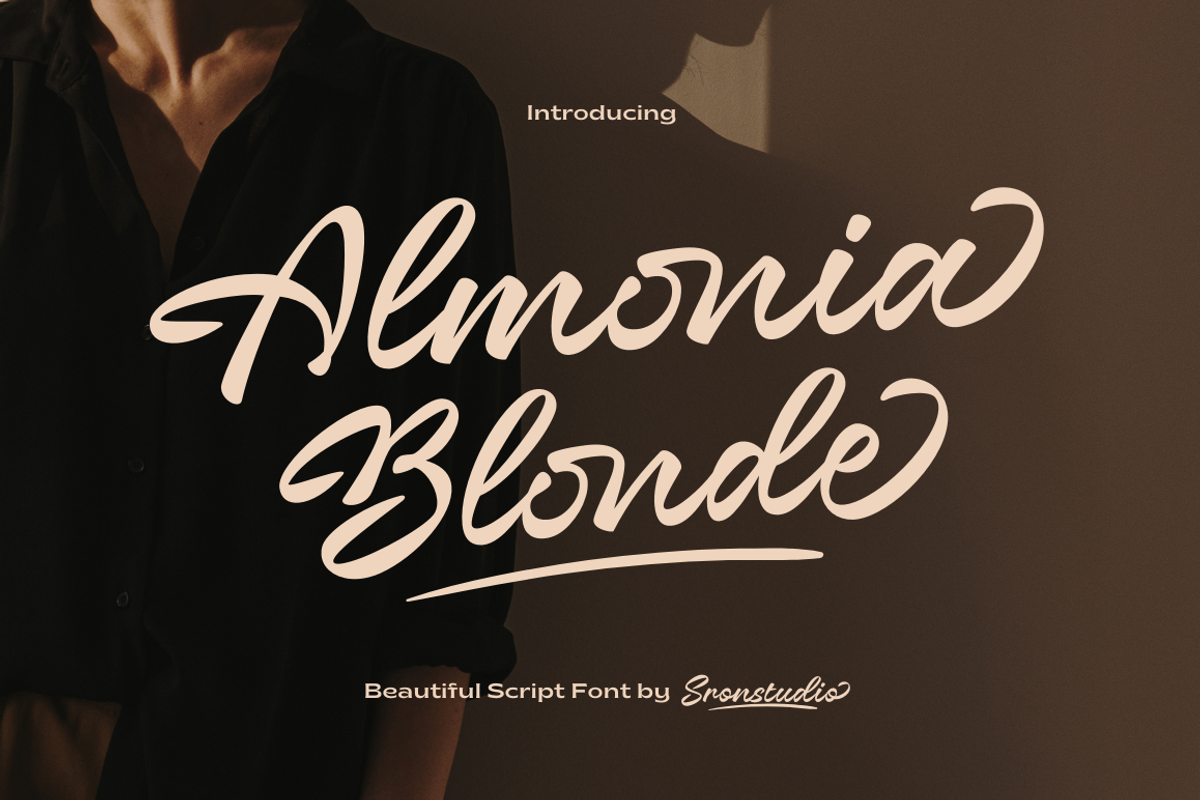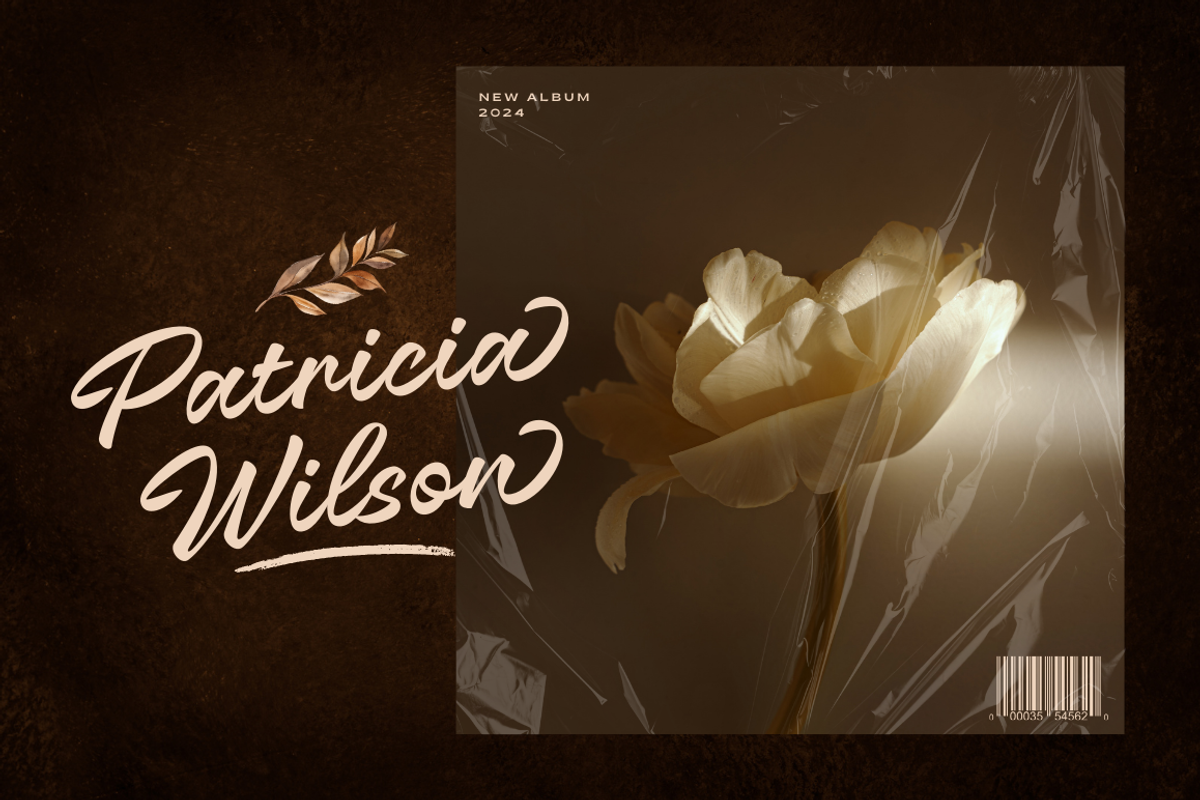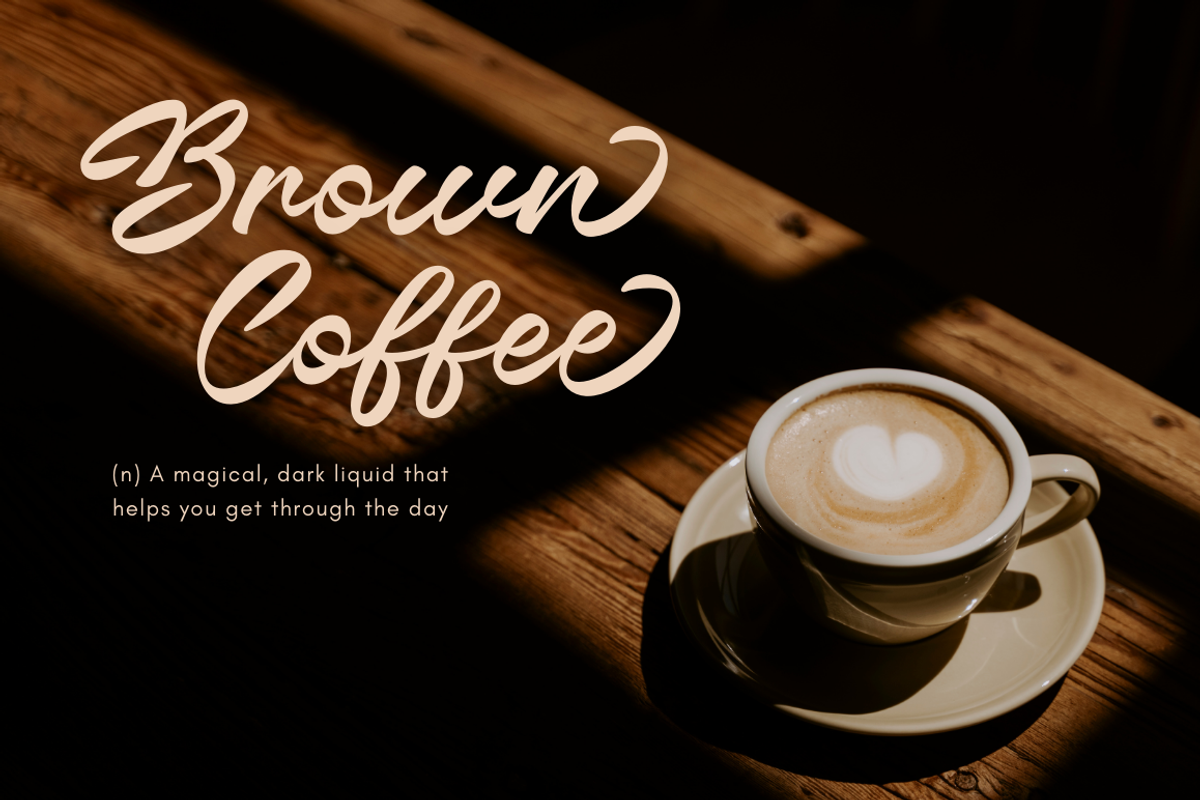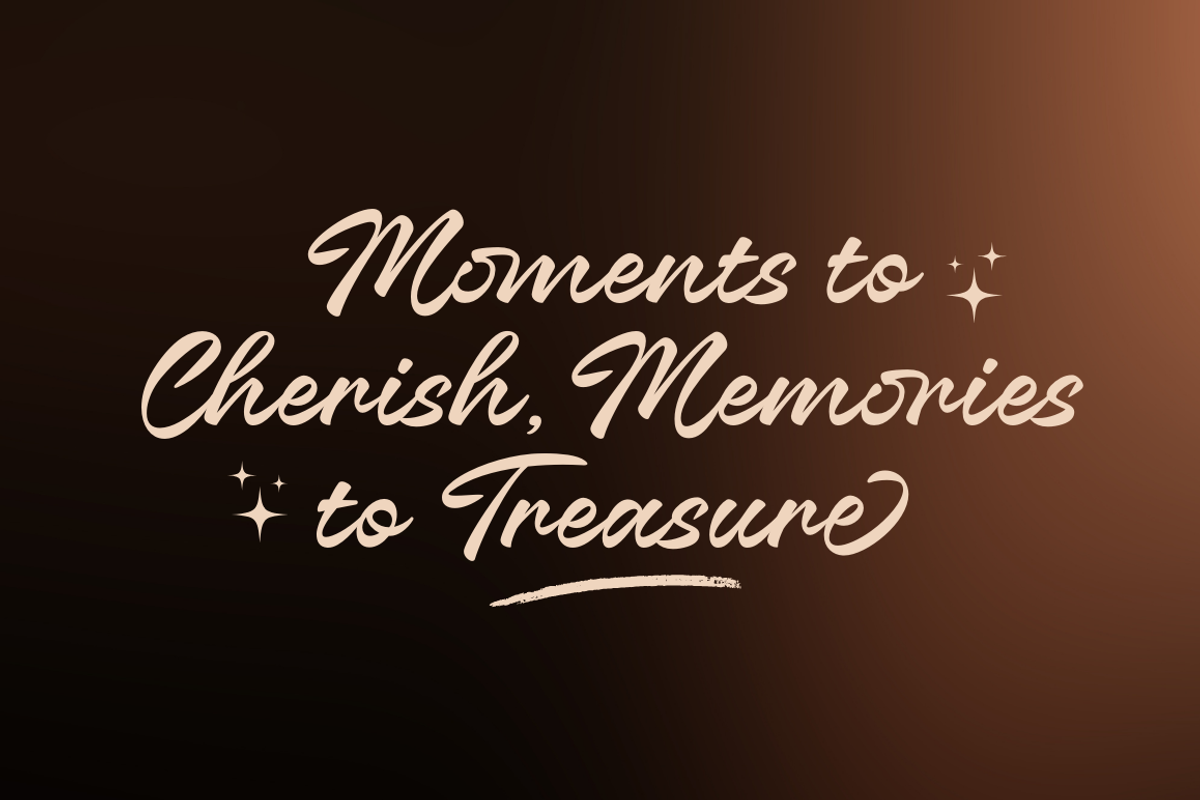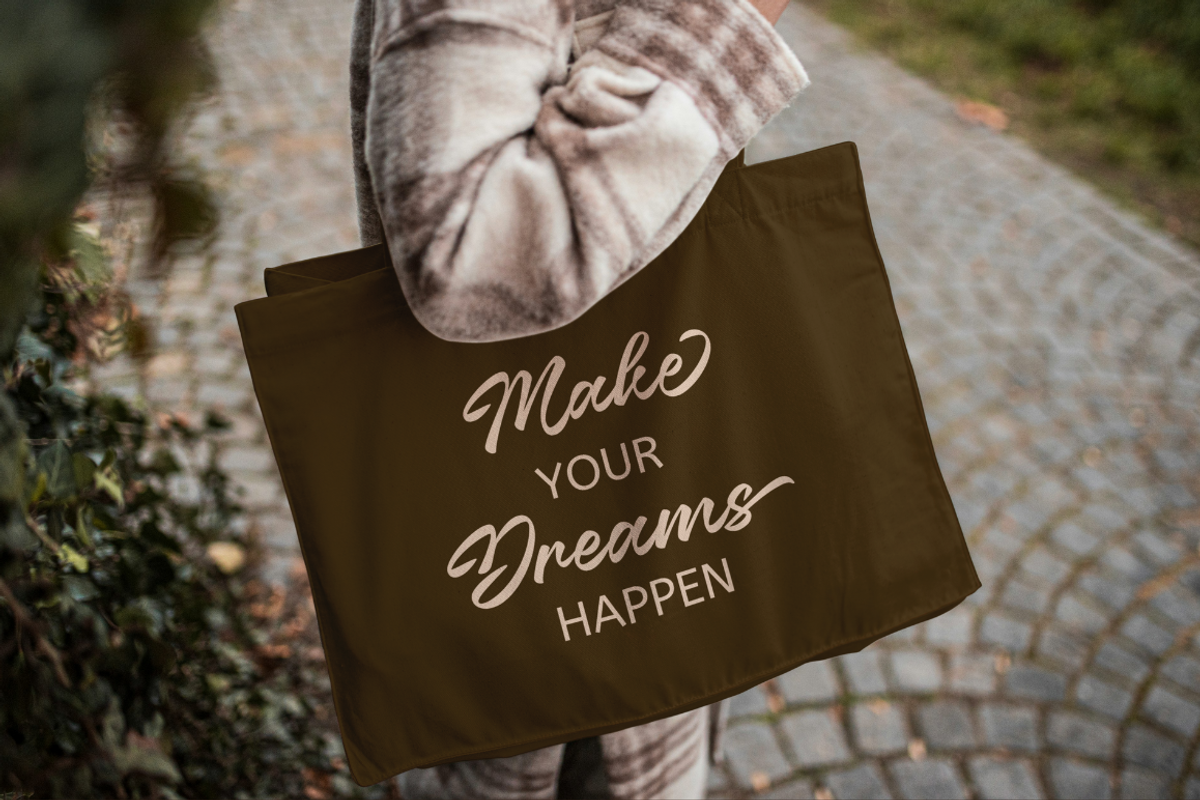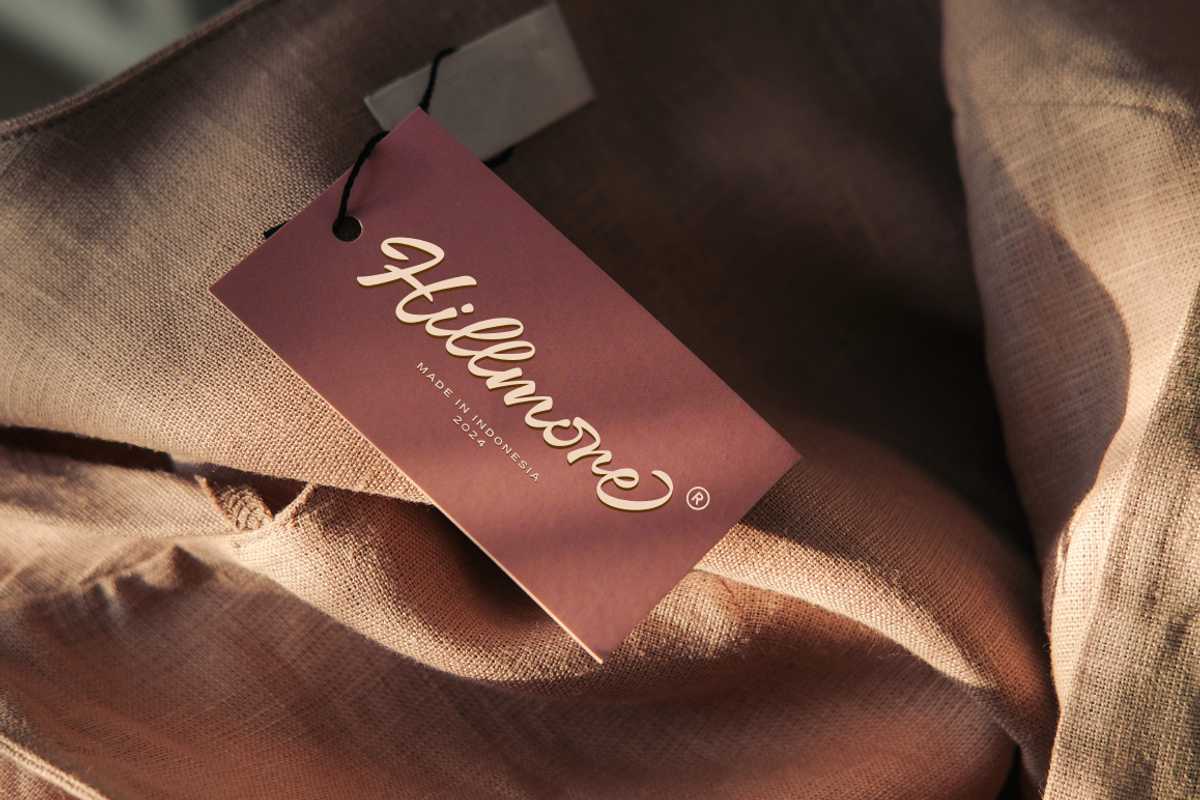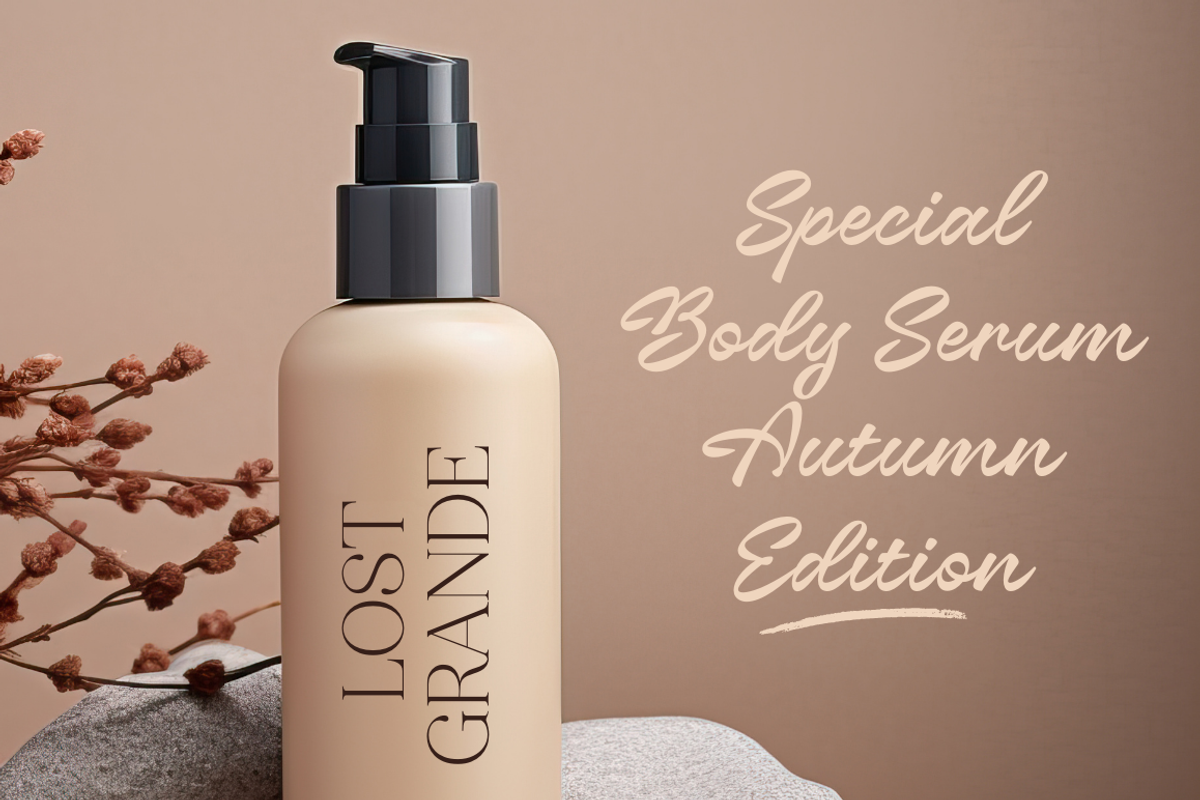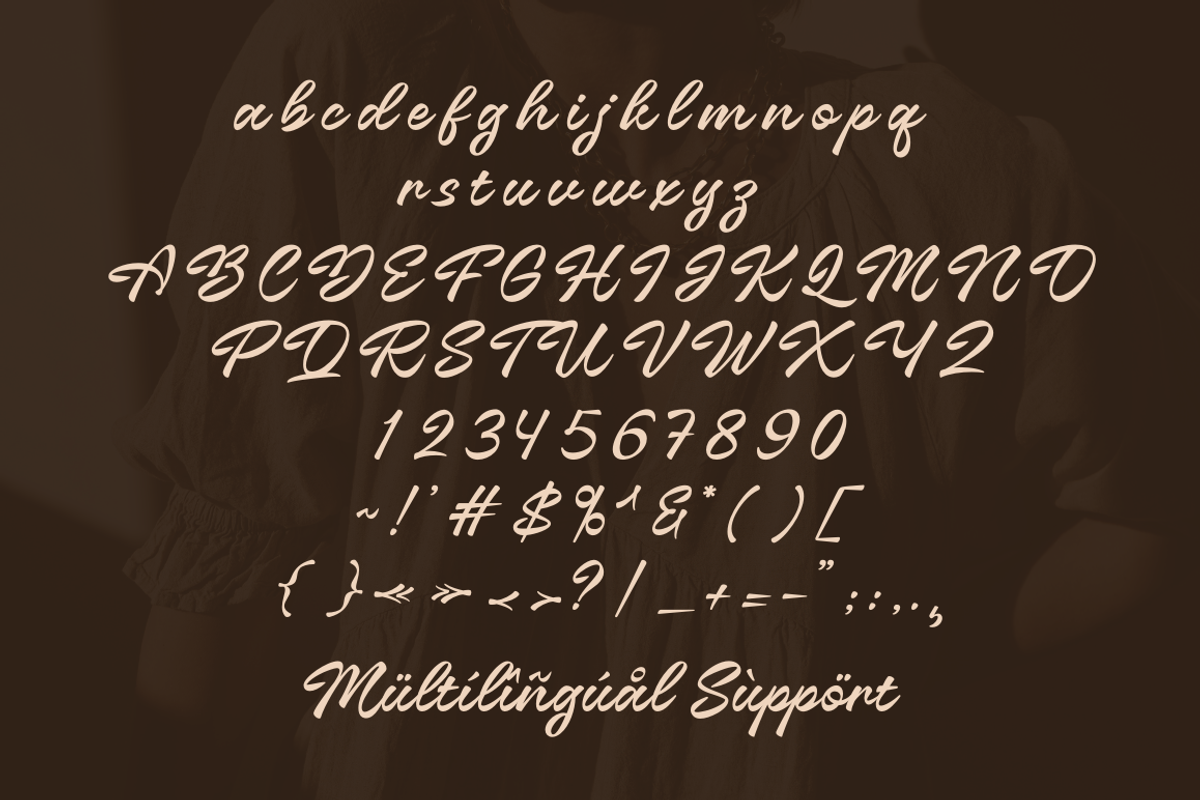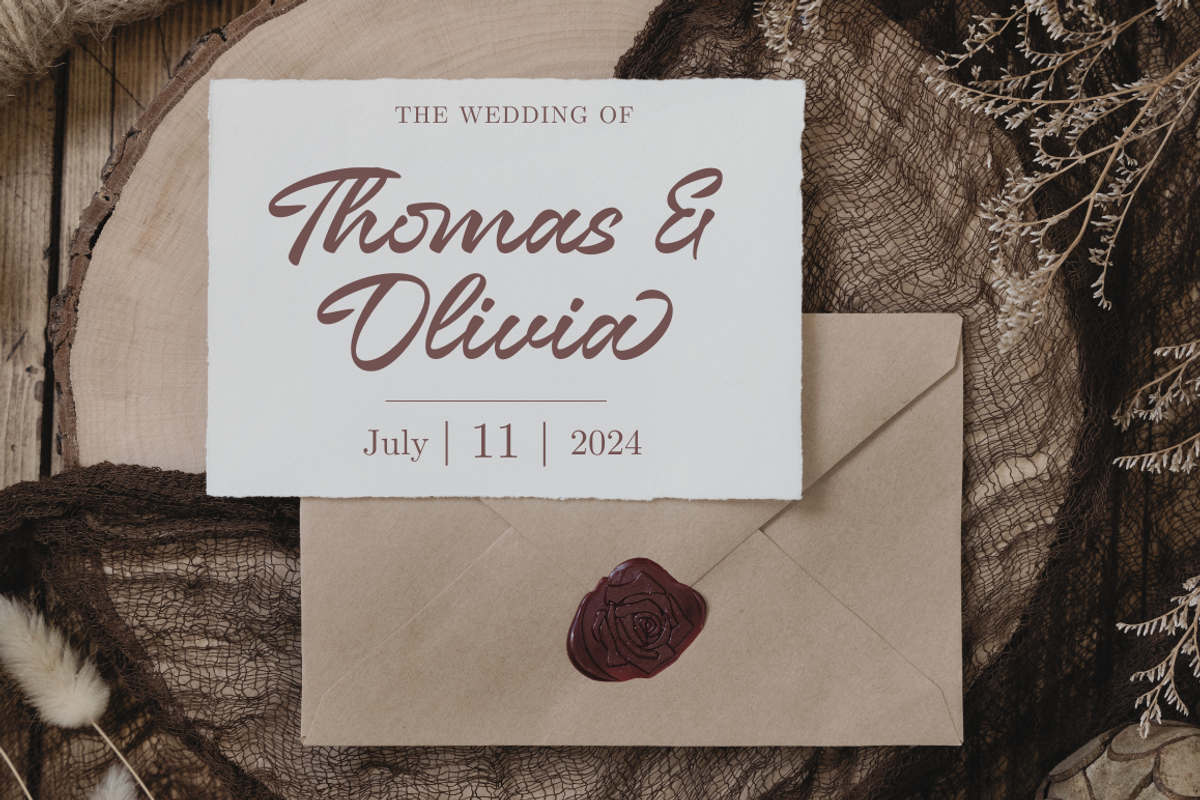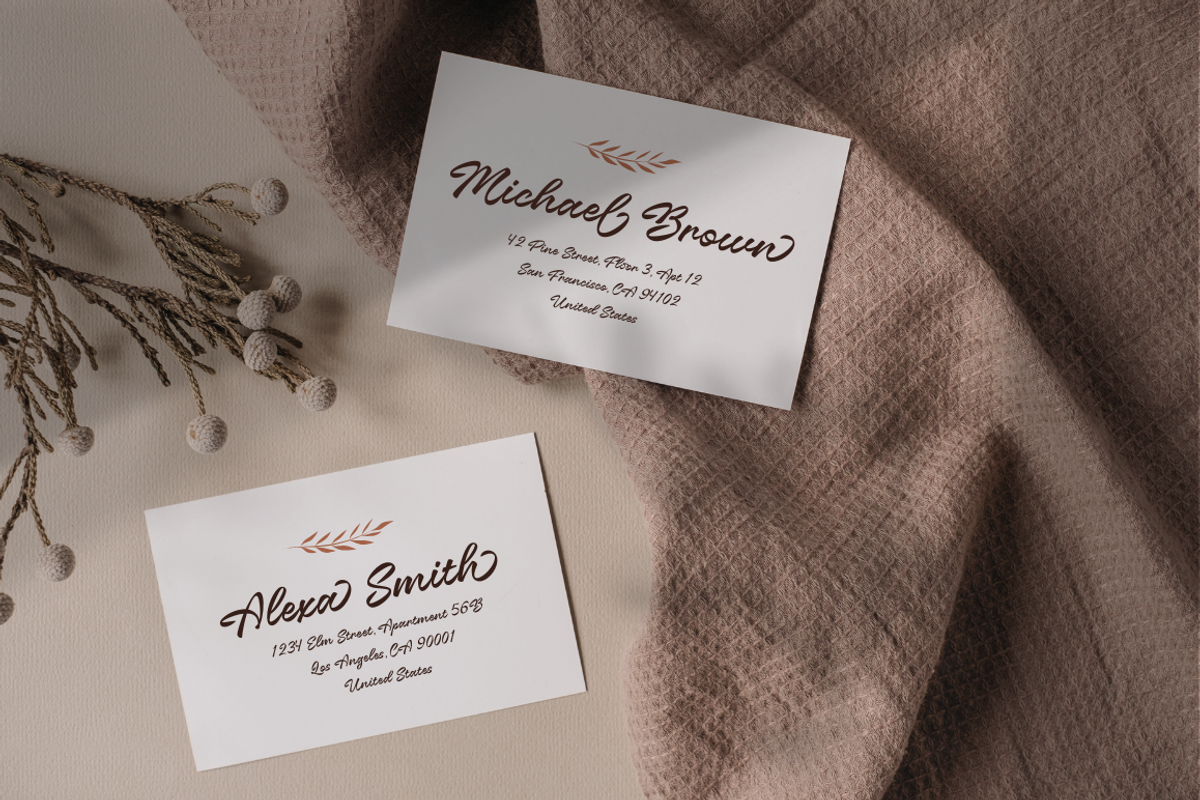
Almonia Blonde – Beautiful Script
Introducing “Almonia Blonde,” a stunning script font that embodies elegance and beauty. With its flowing, handcrafted lettering and versatile alternates, “Almonia Blonde” is perfect for adding a touch of sophistication to any project. Whether you’re designing wedding invitations, logos, or branding materials, this font provides a luxurious and artistic flair that will make your creations stand out. Experience the timeless charm and refined style of “Almonia Blonde” and elevate your design projects to new heights.
- Ligatures & Alternate Glyphs